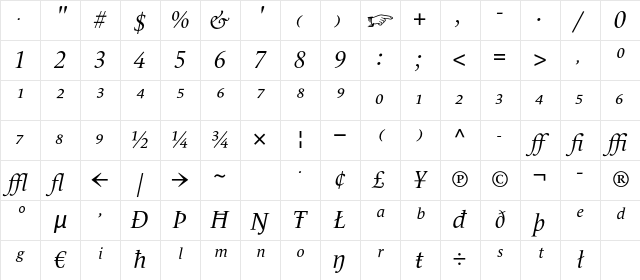
LeMonde Livre Expert Italic
Design Context for LeMonde Livre Expert
LeMonde Livre Expert is a composed and adaptable typeface that performs quietly and consistently across a wide range of design contexts. The slanted form adds forward momentum and visual energy.
Pro Tip: Use LeMonde Livre Expert for emphasis, pull quotes, and subheadings where its slanted energy can add rhythm to the layout.